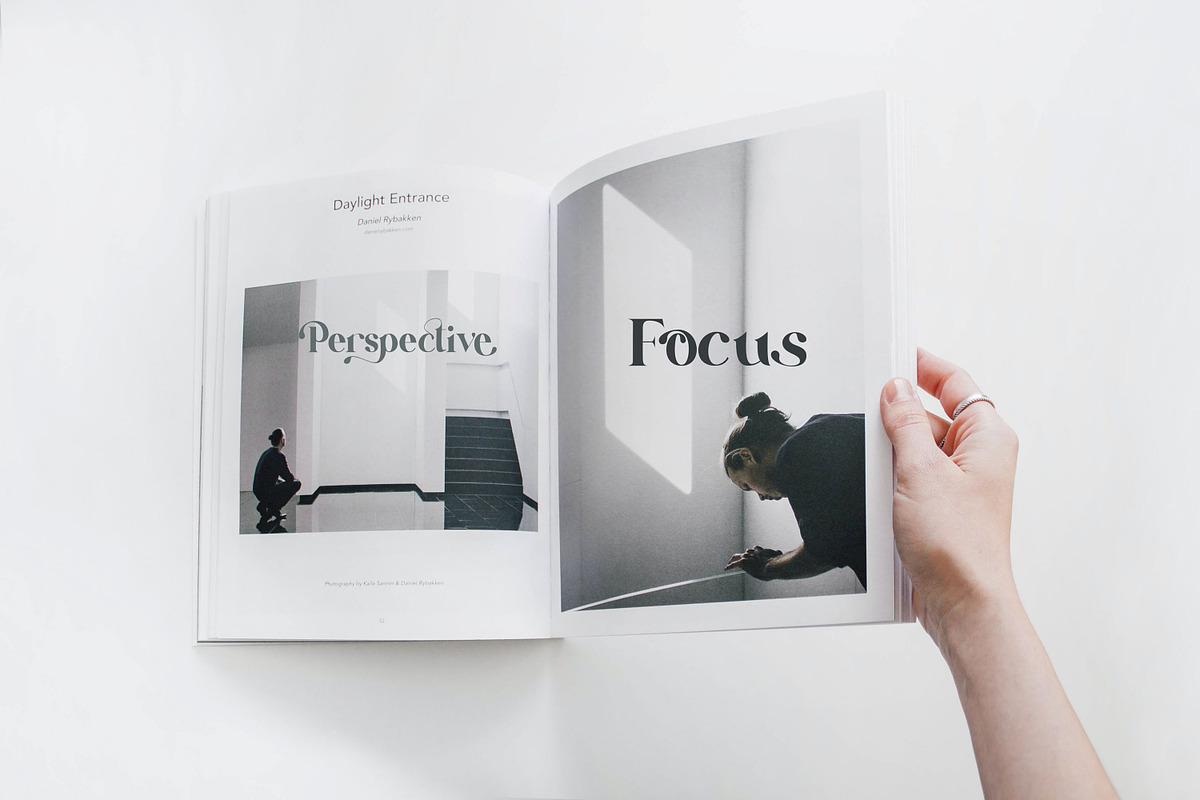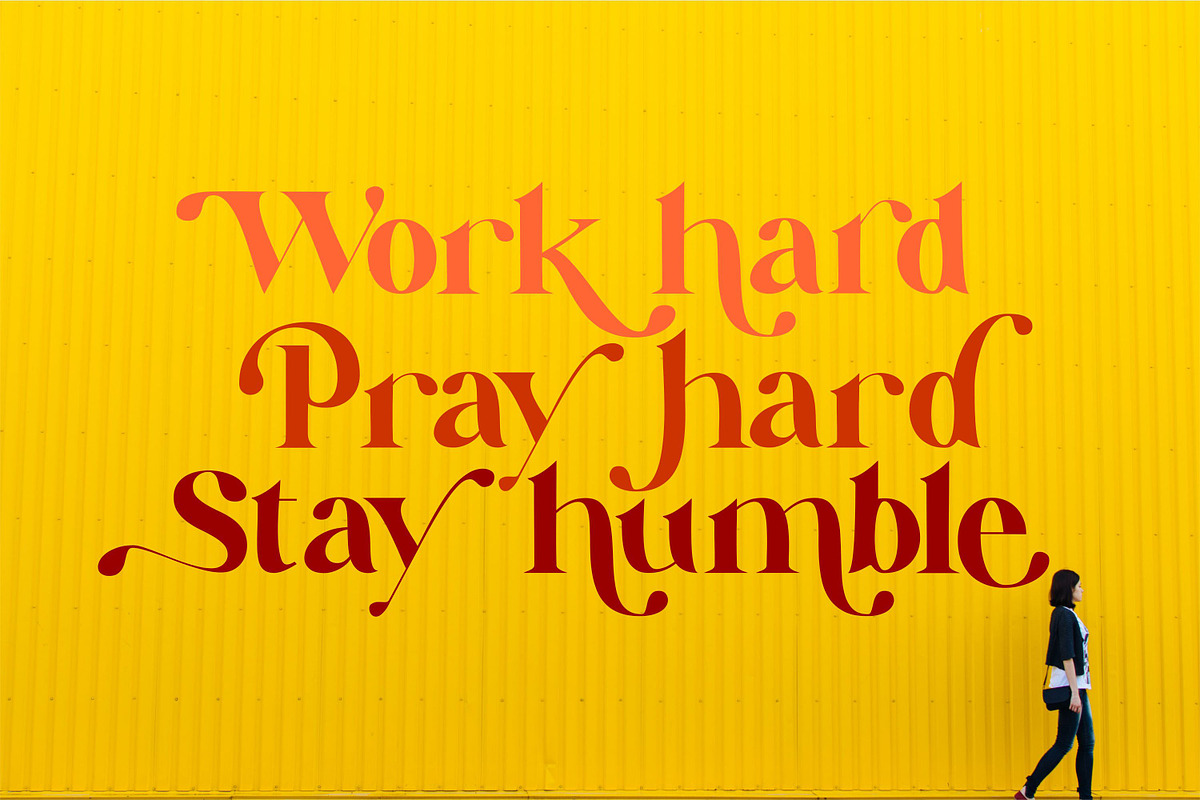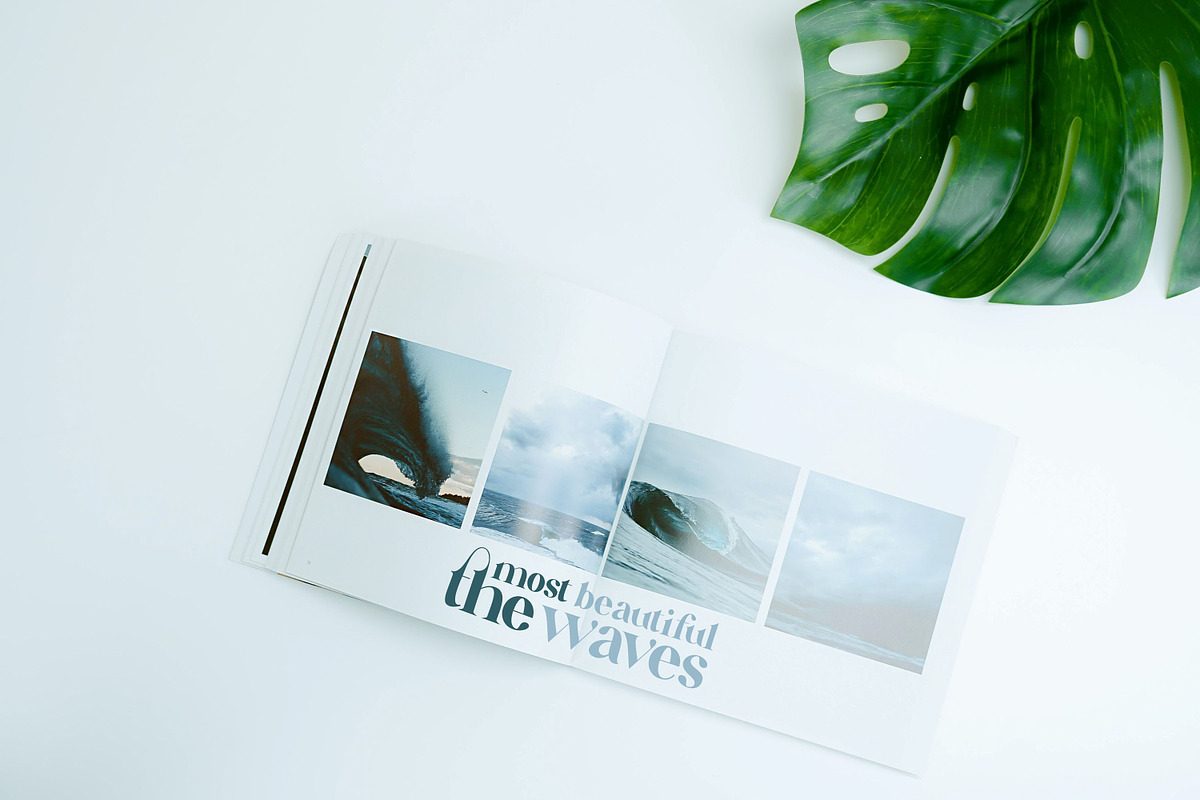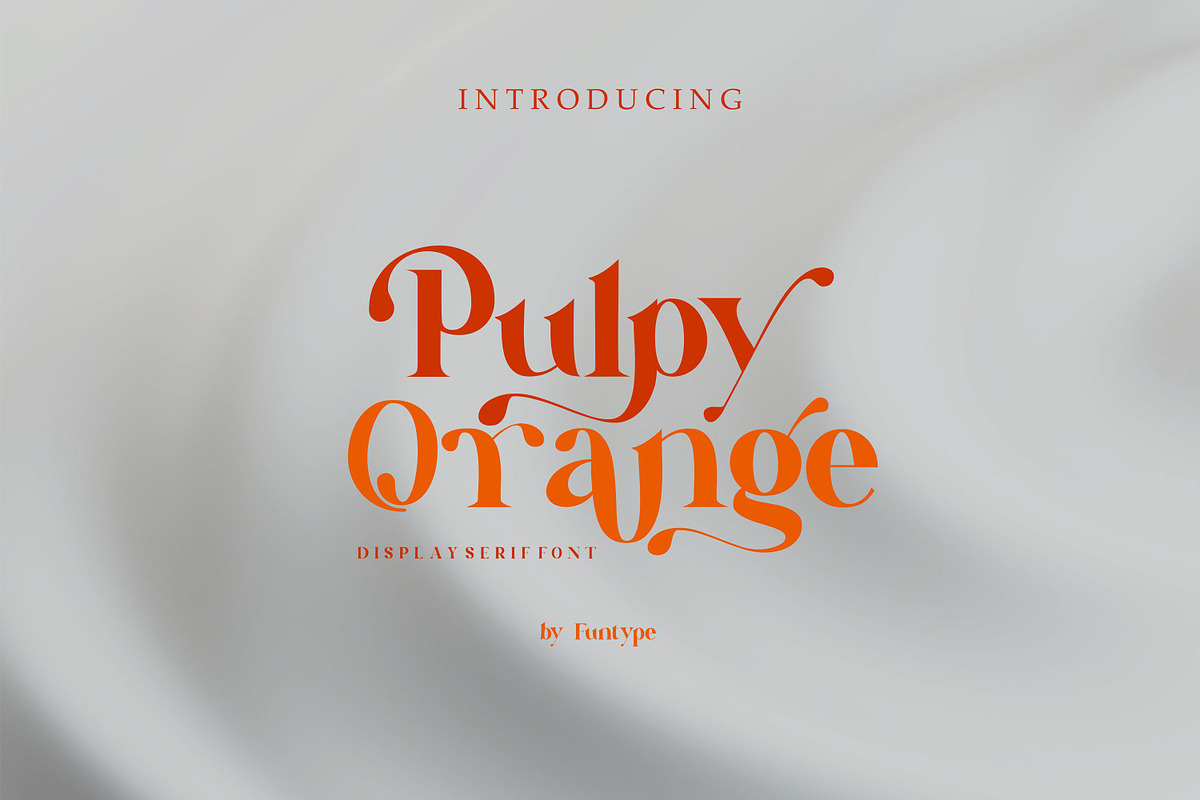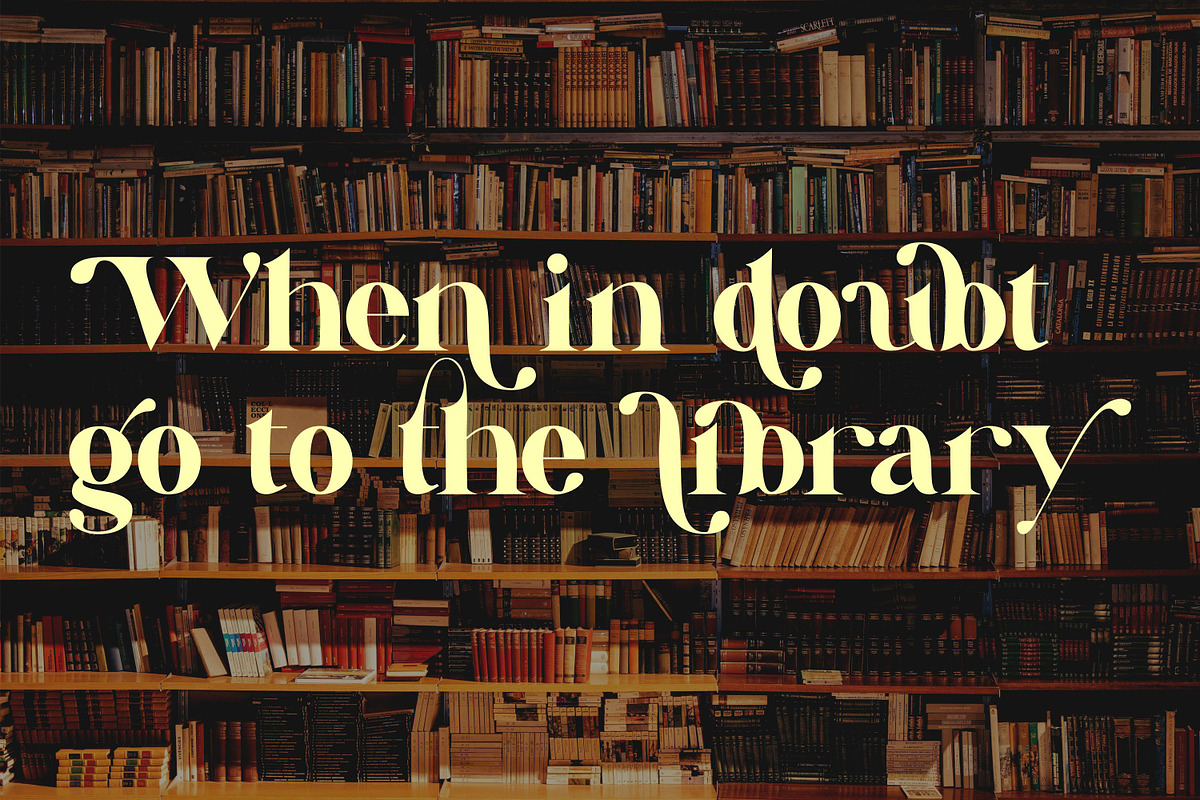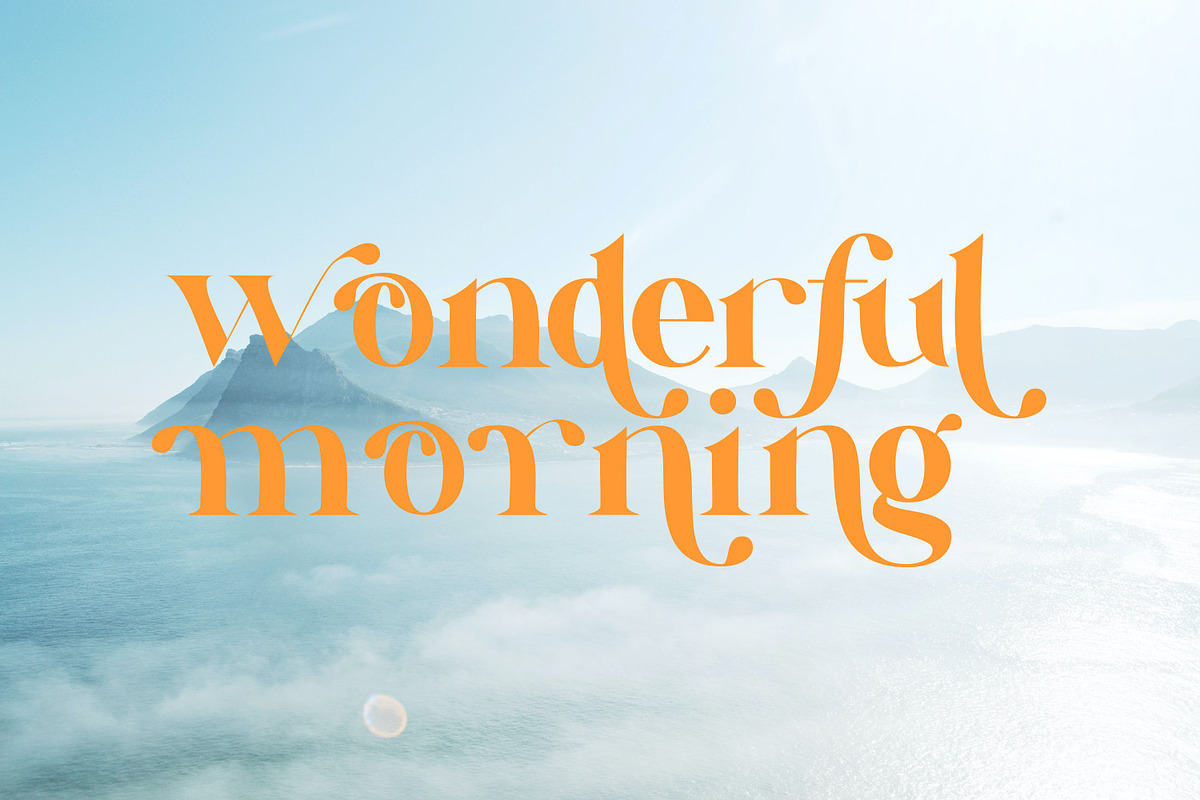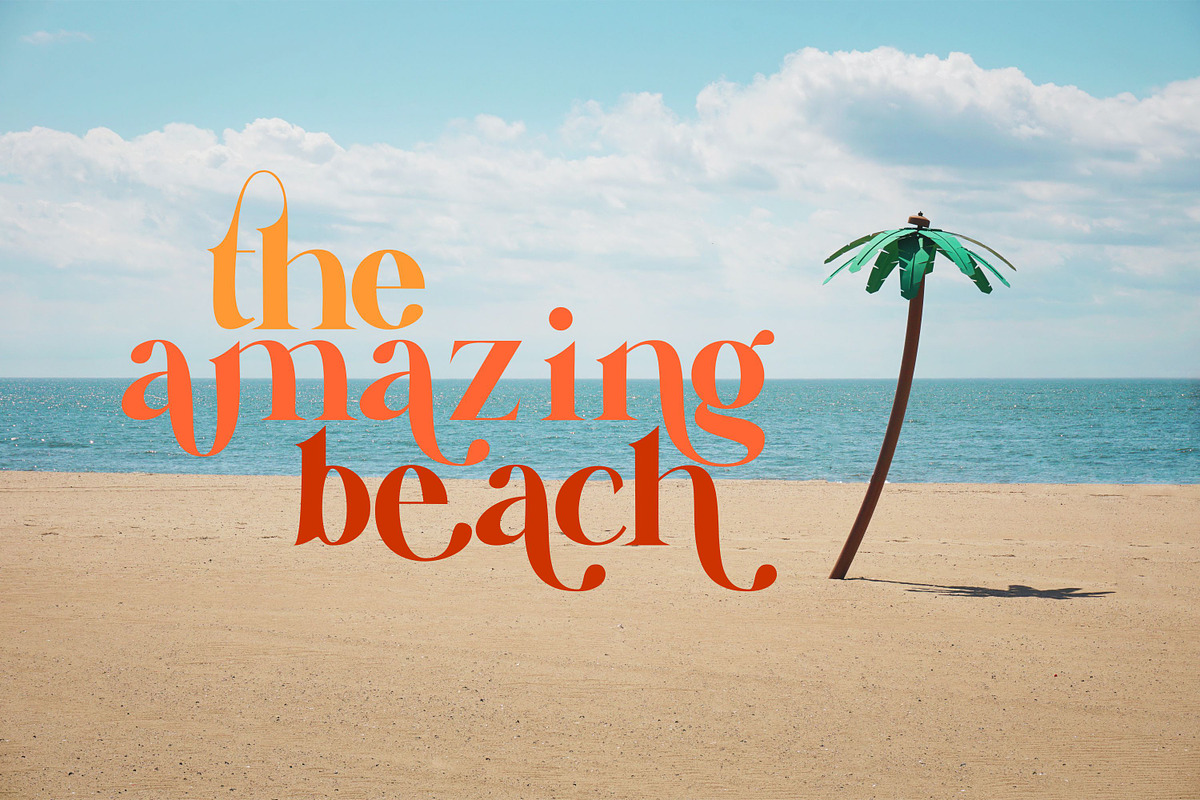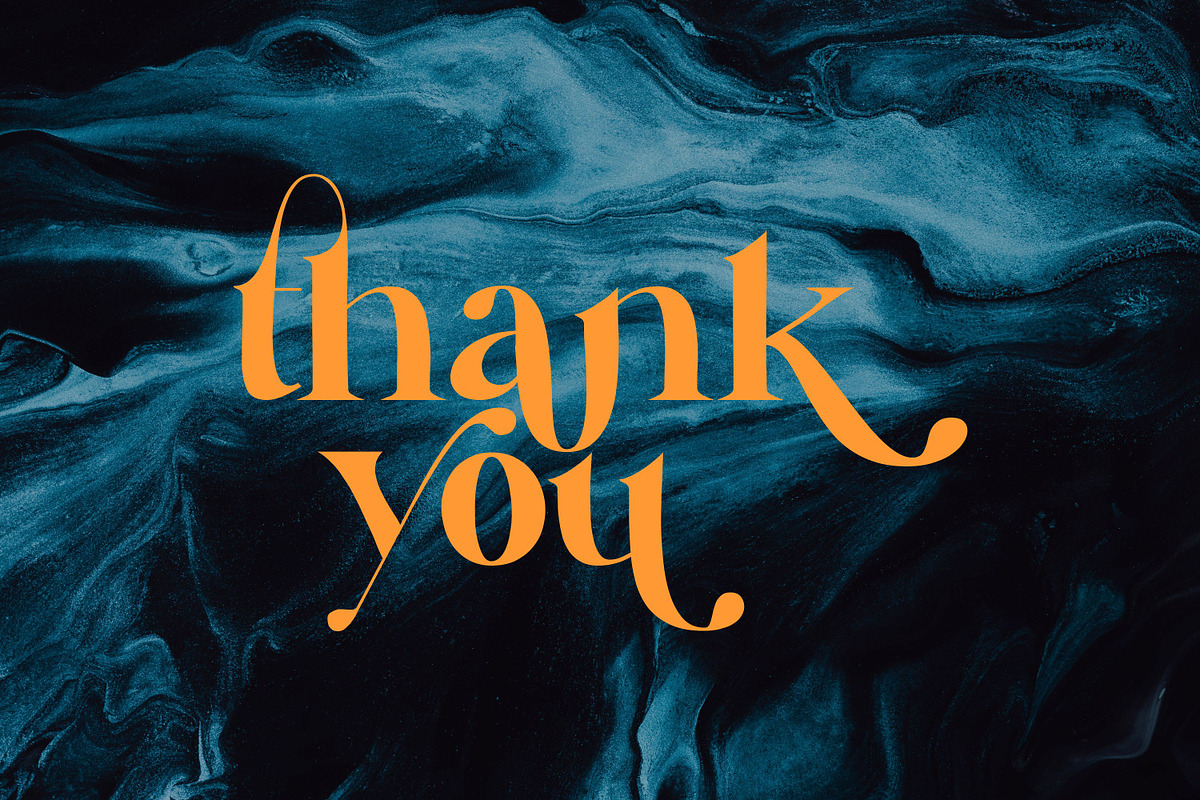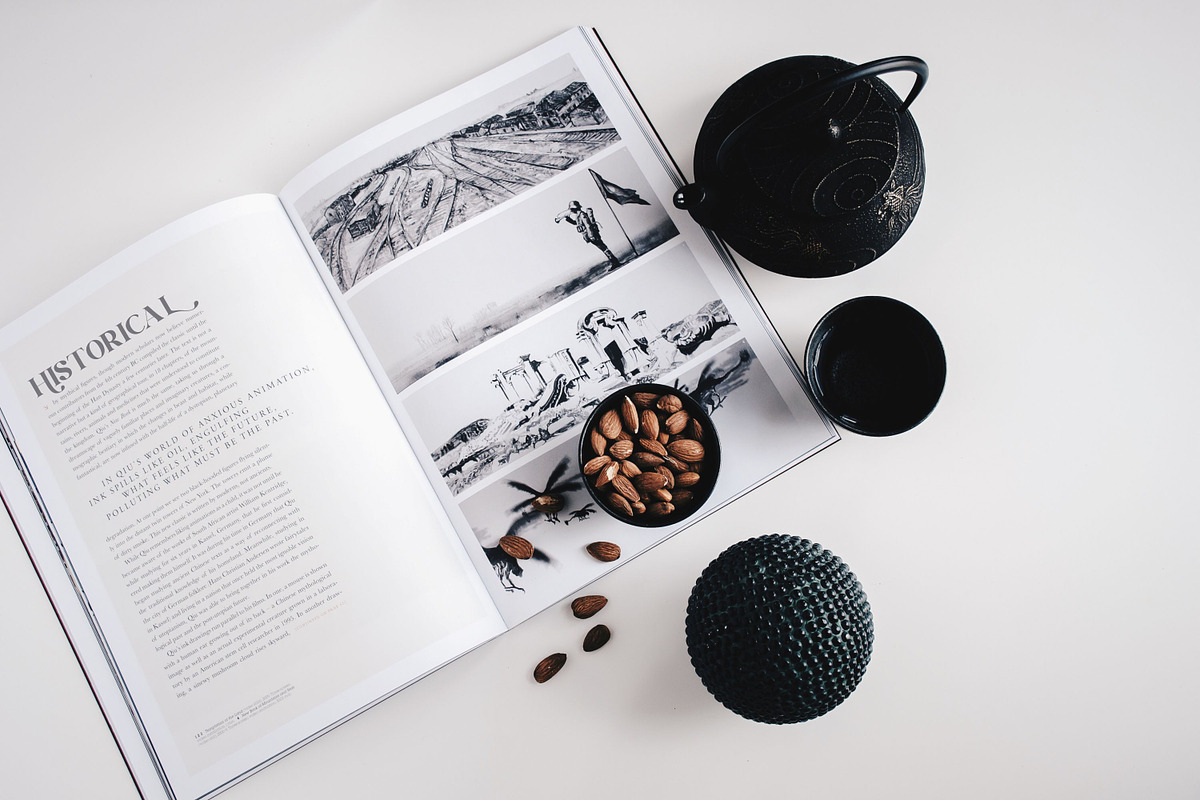
Pulpy Orange
Pulpy orange is a modern serif font, carefully crafted to look beautiful and elegant. And with OpenType features for alternative font choices. This font is perfect for branding, logos, social media, prints, stickers, shirts and more!
Font features :
- Uppercase beginning swash
- Lowercase ending swash
- 17 ligatures